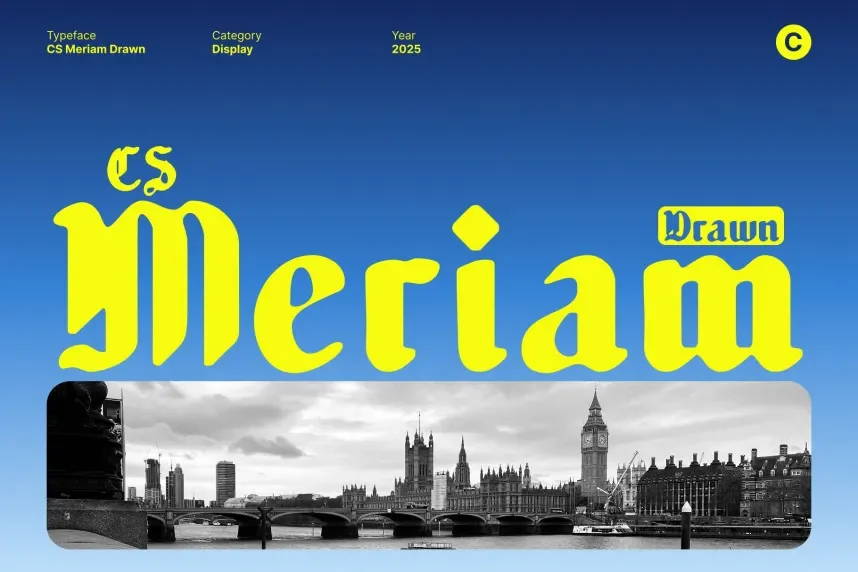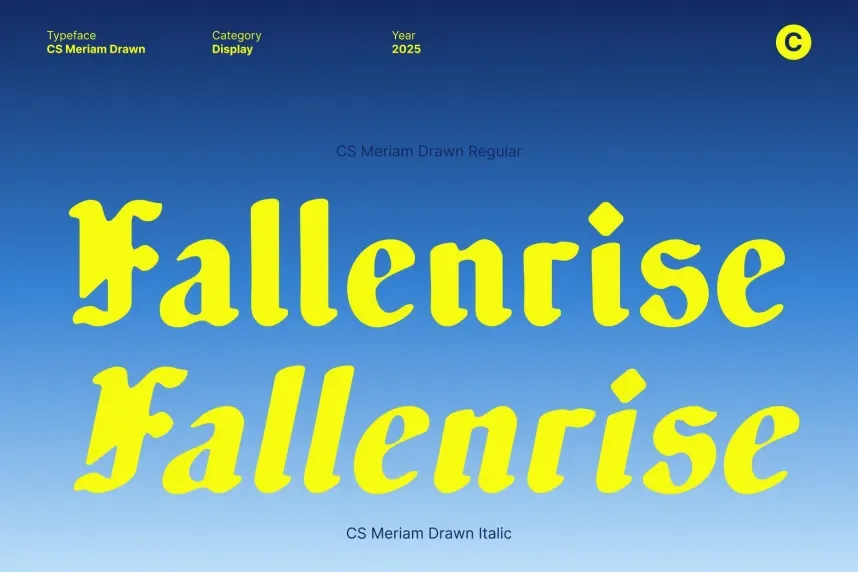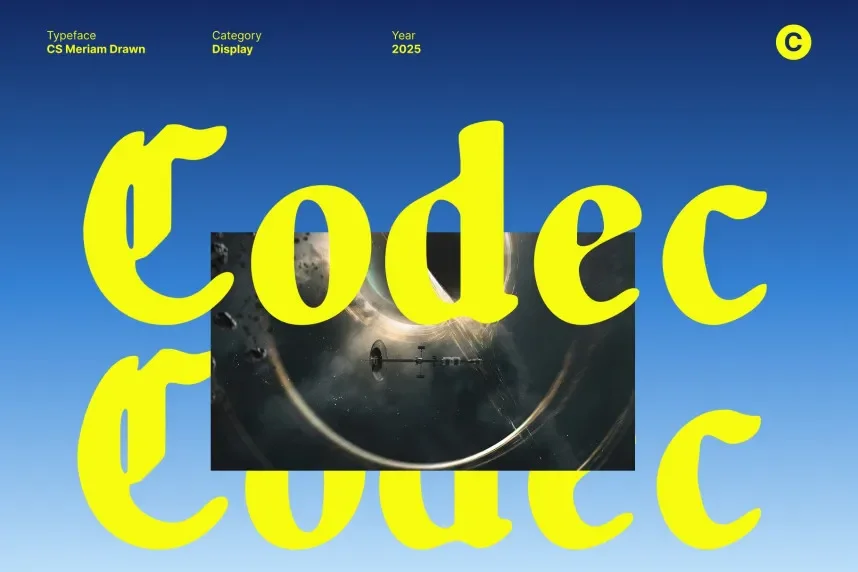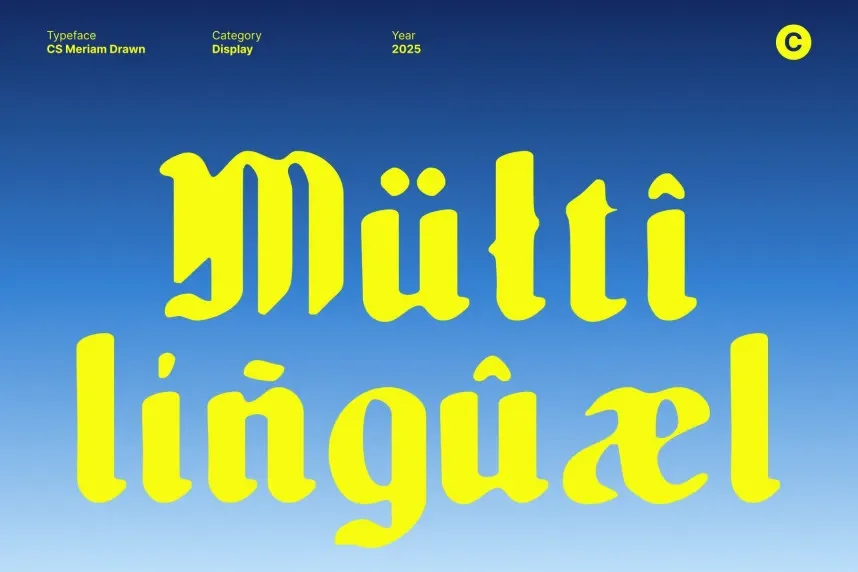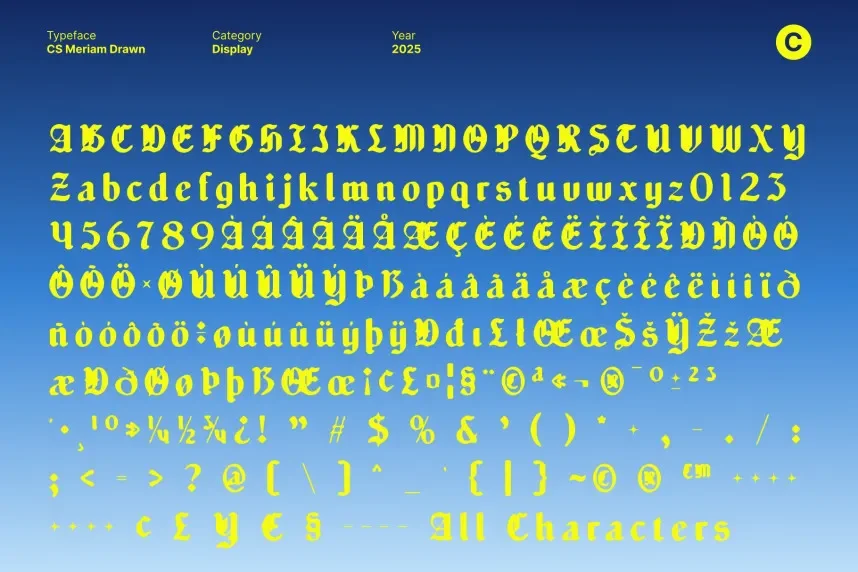
CS Meriam Drawn Font addresses the challenge of adding playful character to designs while ensuring legibility. This font is perfect for projects where an expressive and lively typeface is needed.
CS Meriam is a hand-drawn display font with thick, playful strokes and exaggerated curves. Its quirky letterforms make it stand out in creative projects, offering a fun, informal style.